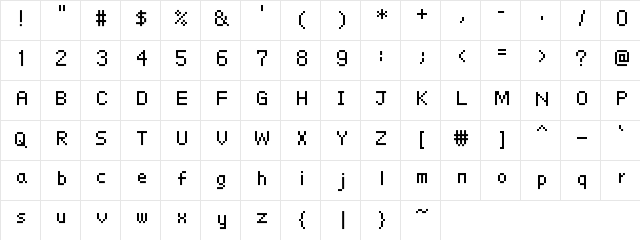
mywizz_ttobak Regular
| Foundry | mywizz.com |
| Designer | WiZZ |
Design Context for mywizz_ttobak Typeface
mywizz_ttobak offers clean, dependable letterforms without strong stylistic allegiance, making it a practical choice for designers who need flexibility.